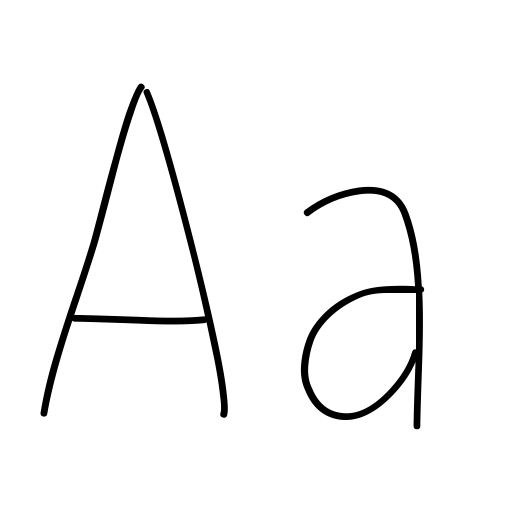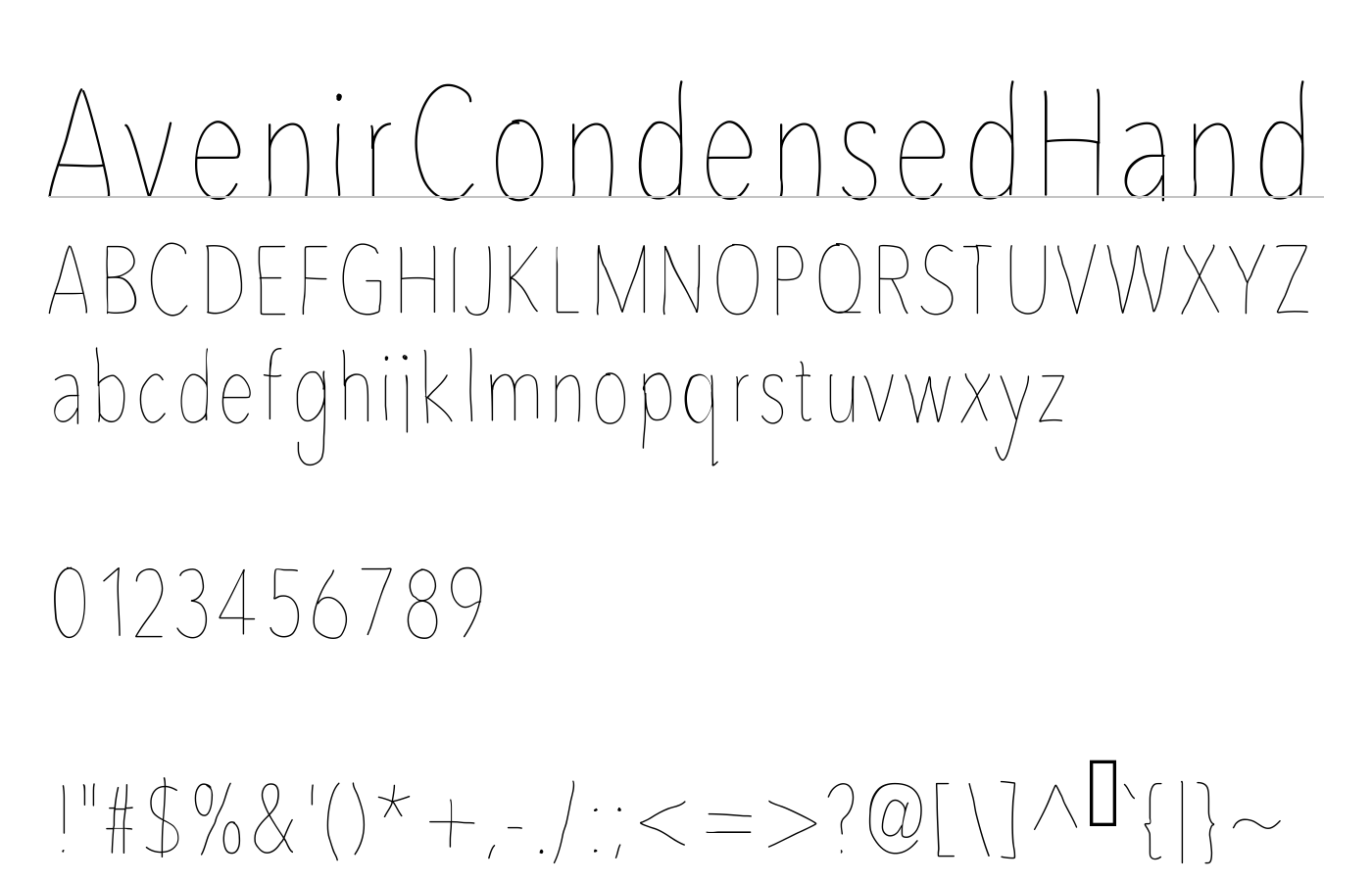
AvenirCondensedHand is a slender, condensed sans serif font with a delicate, handwritten feel characterized by thin, uneven strokes and tall, narrow letterforms. Its light weight and airy spacing give it a casual yet refined personality, making it suitable for creative, informal designs that need a touch of elegance without heaviness. This font works well for artistic branding, personal invitations, and editorial accents where a unique, hand-crafted look is desired.
AvenirCondensedHand Font
About AvenirCondensedHand Font
| Font family | AvenirCondensedHand Font |
| Font subfamily | Medium, Condensed |